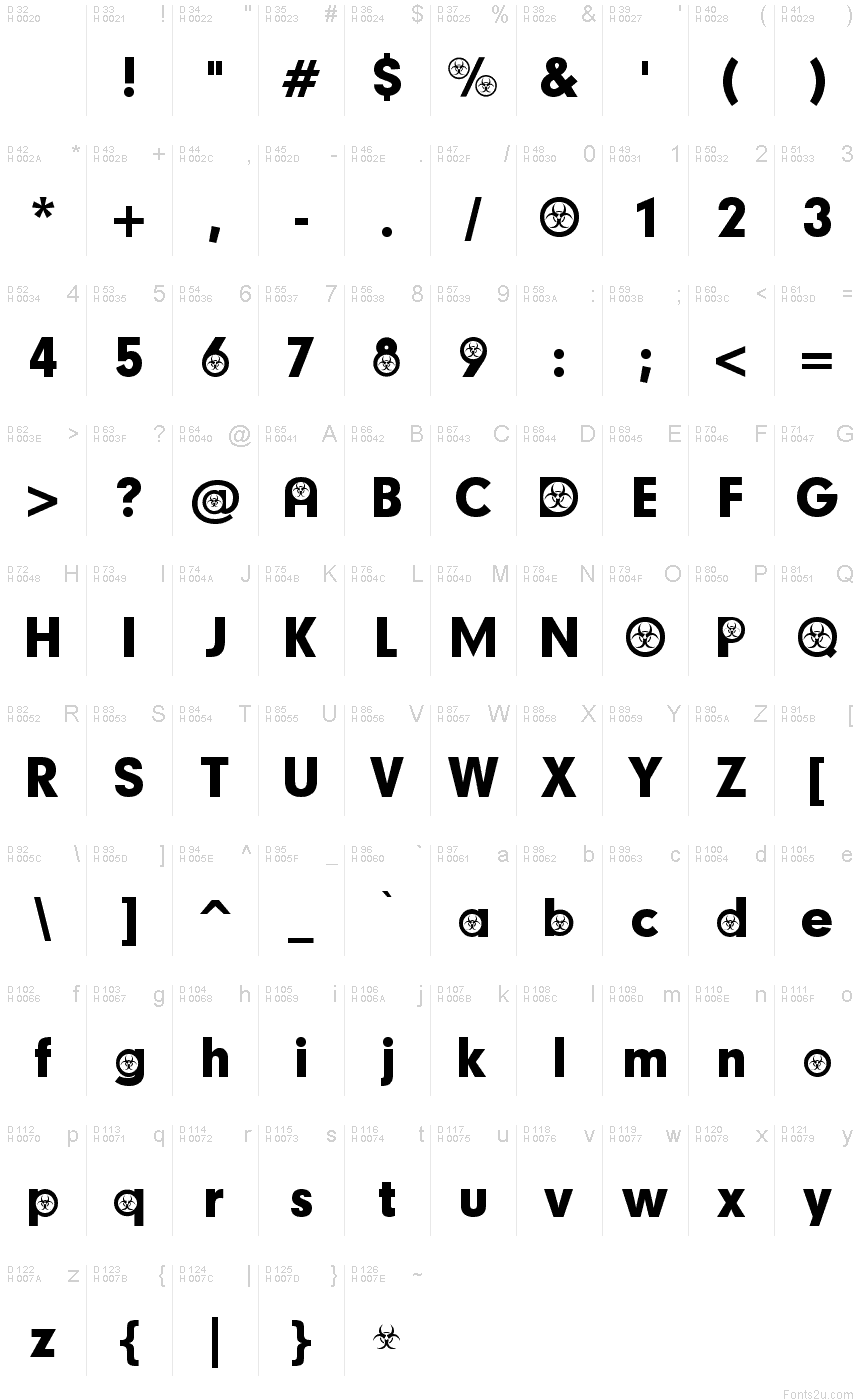
Biohazard Participants
Biohazard Participants font by Ray Larabie is a free decorative display typeface that turns every word into a hazard sign. Thick, rounded letters feel heavy and industrial, while the built-in biohazard emblems puncture the text like warning stamps. The shapes are bold, tightly packed, and inky black, giving headlines a loud, contagion-lab energy that’s hard to ignore.
Using Biohazard Participants, your titles instantly signal danger, sci‑fi contamination, or post-apocalyptic chaos. This free font works beautifully for game logos, movie posters, Halloween flyers, escape-room branding, themed event graphics, and edgy merch. Keep the impact by pairing it with a clean, neutral sans serif at smaller sizes, letting Biohazard Participants handle the loud, radioactive headlines.